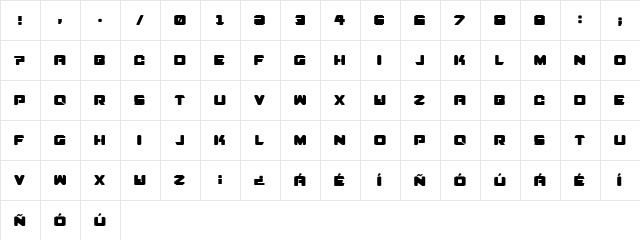
pedrosky Regular Font Preview
pedrosky Regular
pedrosky Regular Font Details
| Designer | Pedro Guti鲲ez |
Design Context for pedrosky Typeface
pedrosky is a composed and adaptable typeface that performs quietly and consistently across a wide range of design contexts.